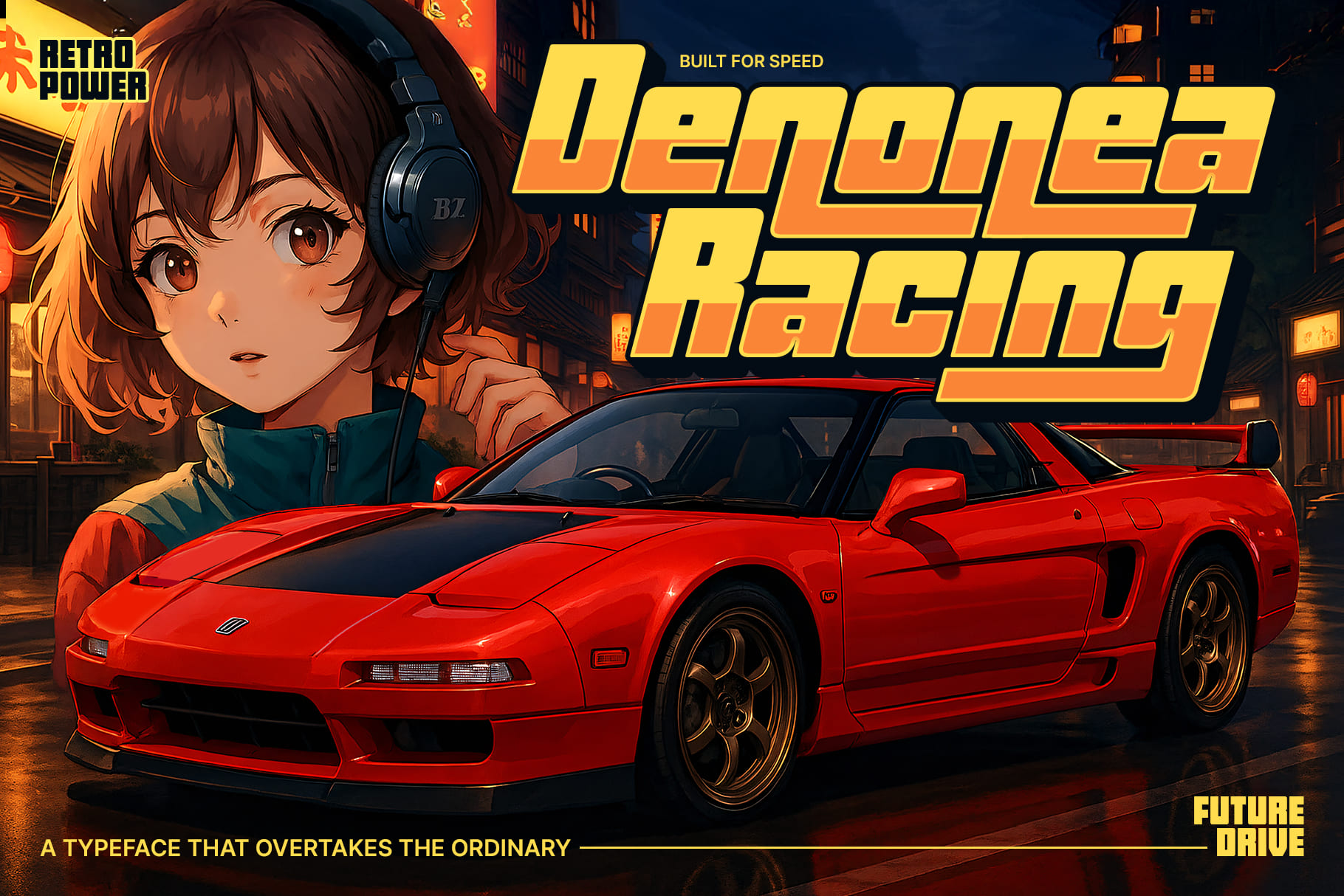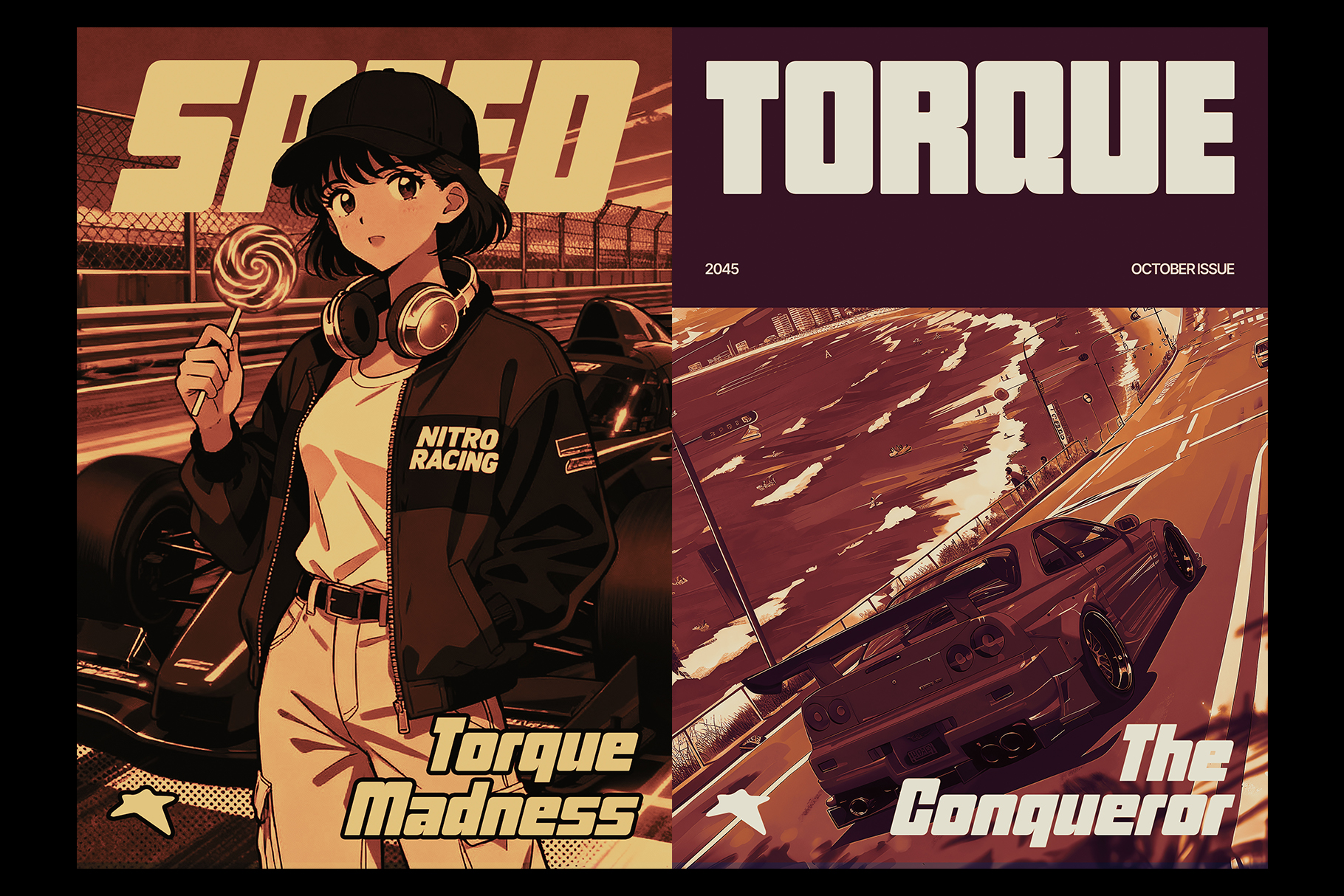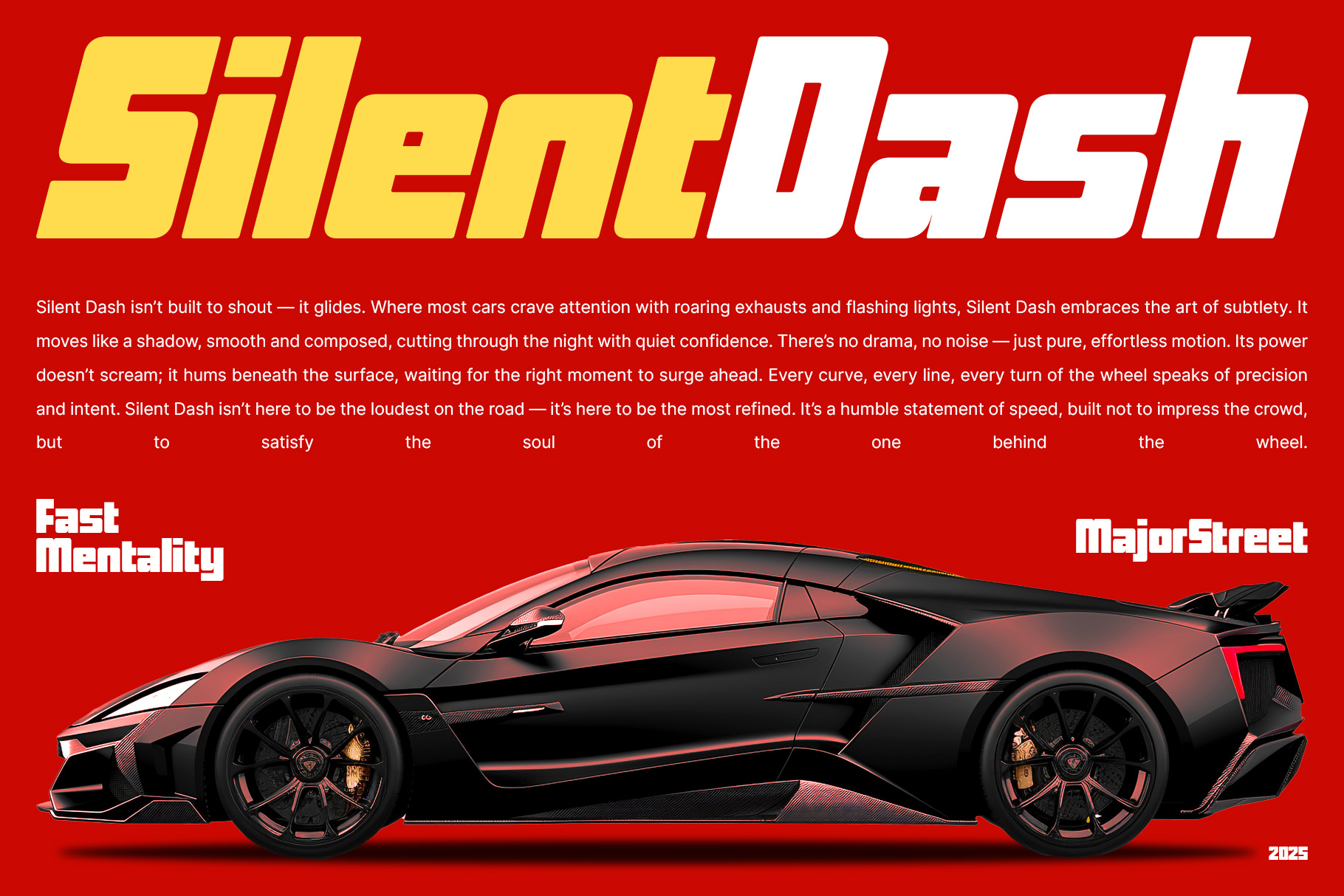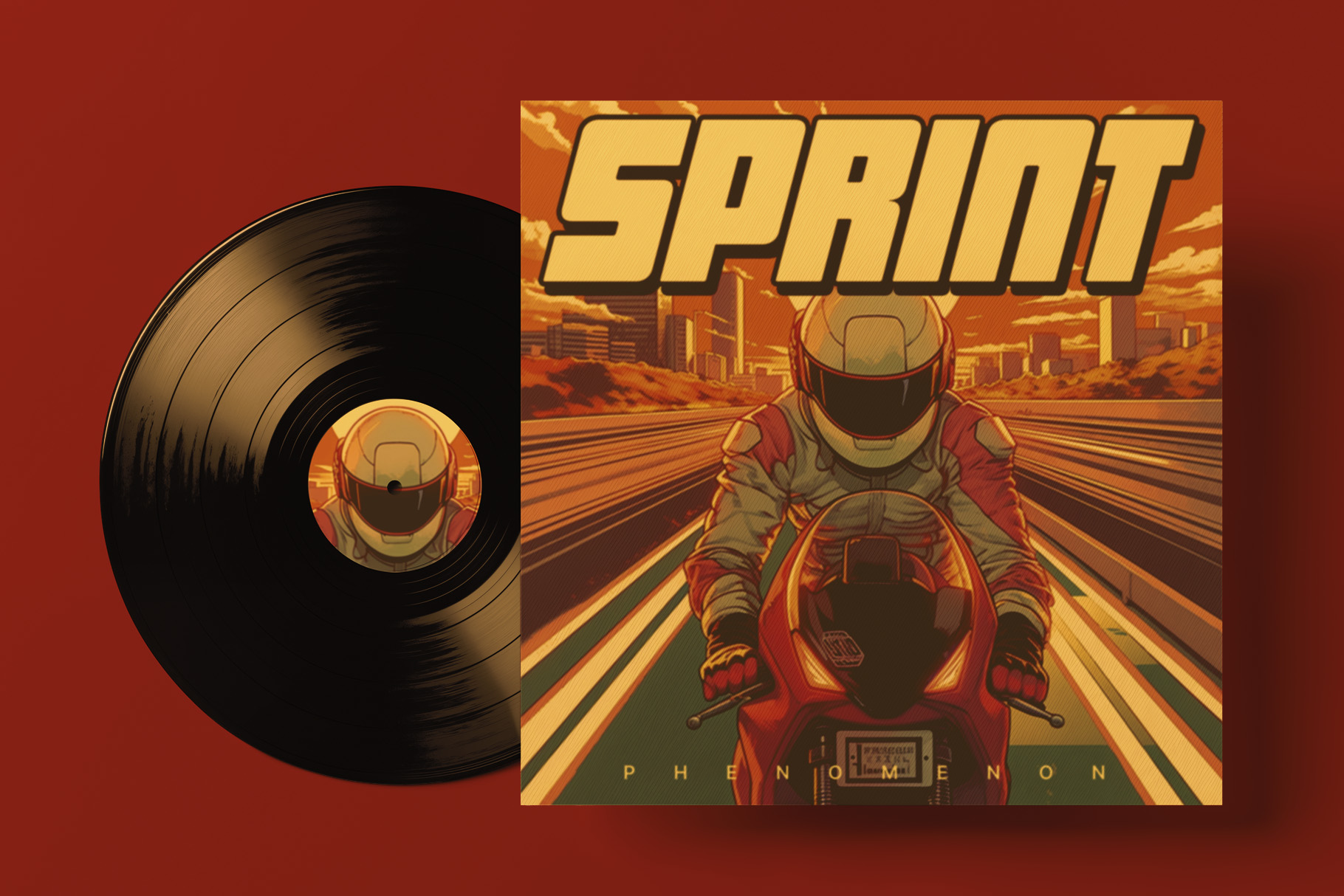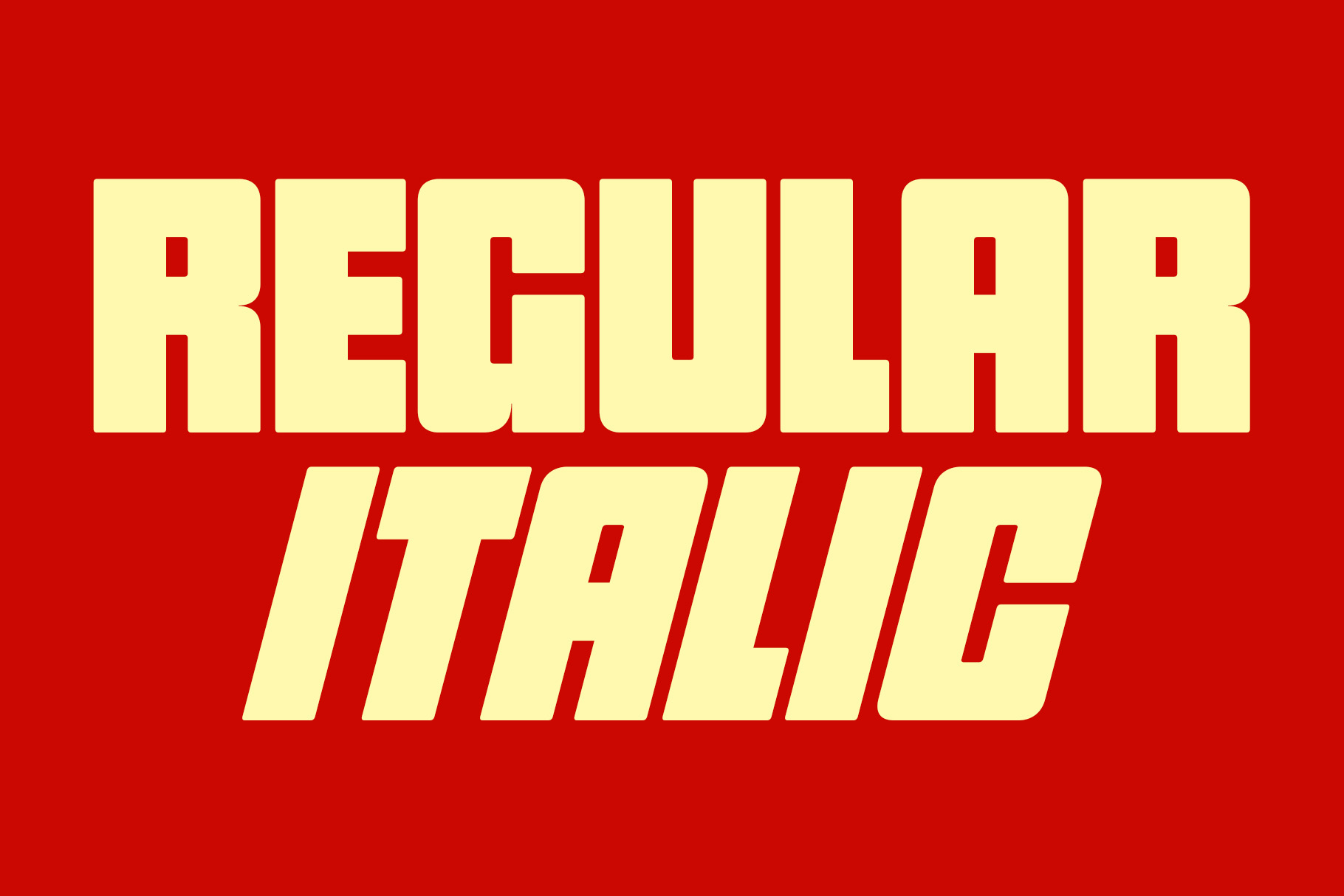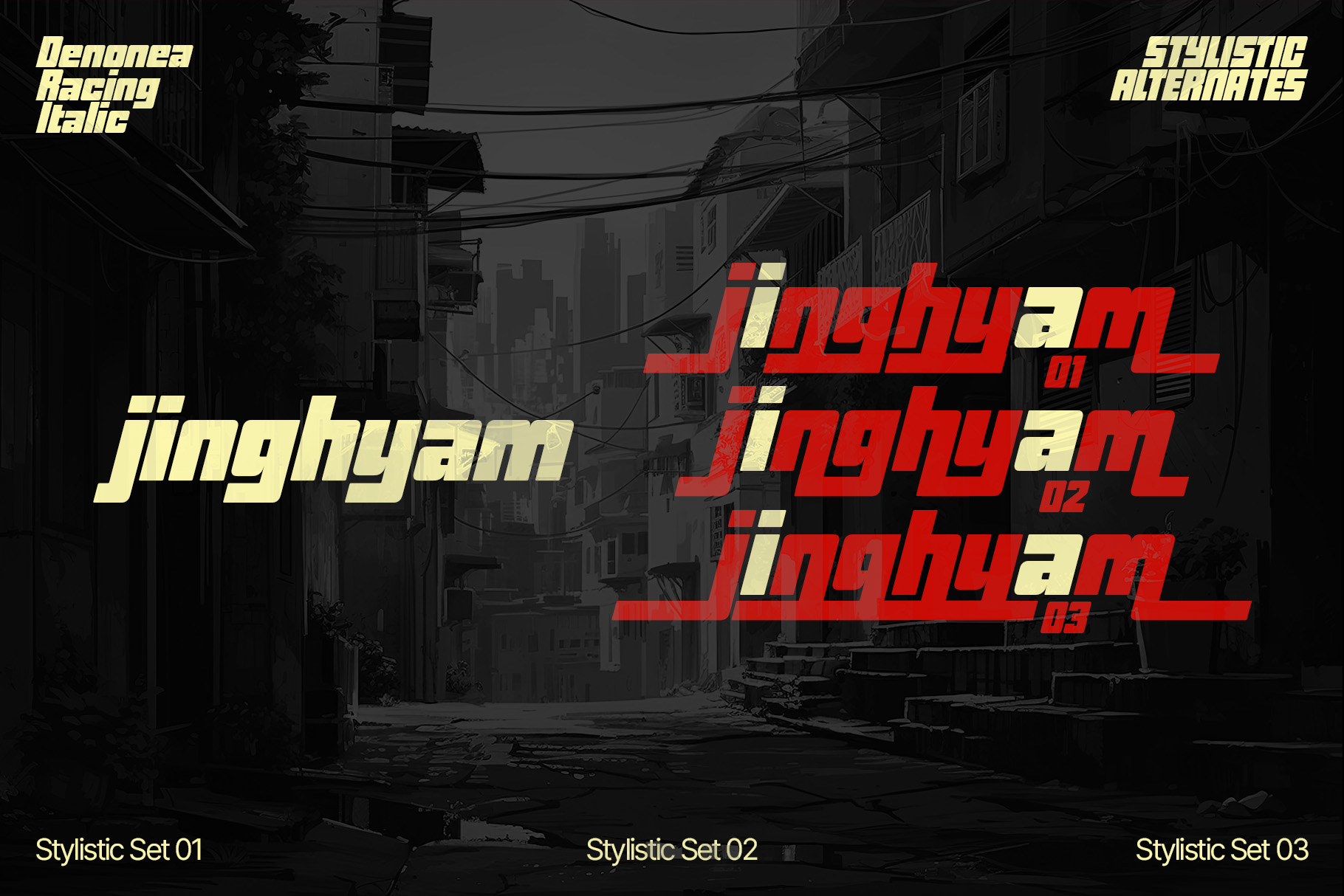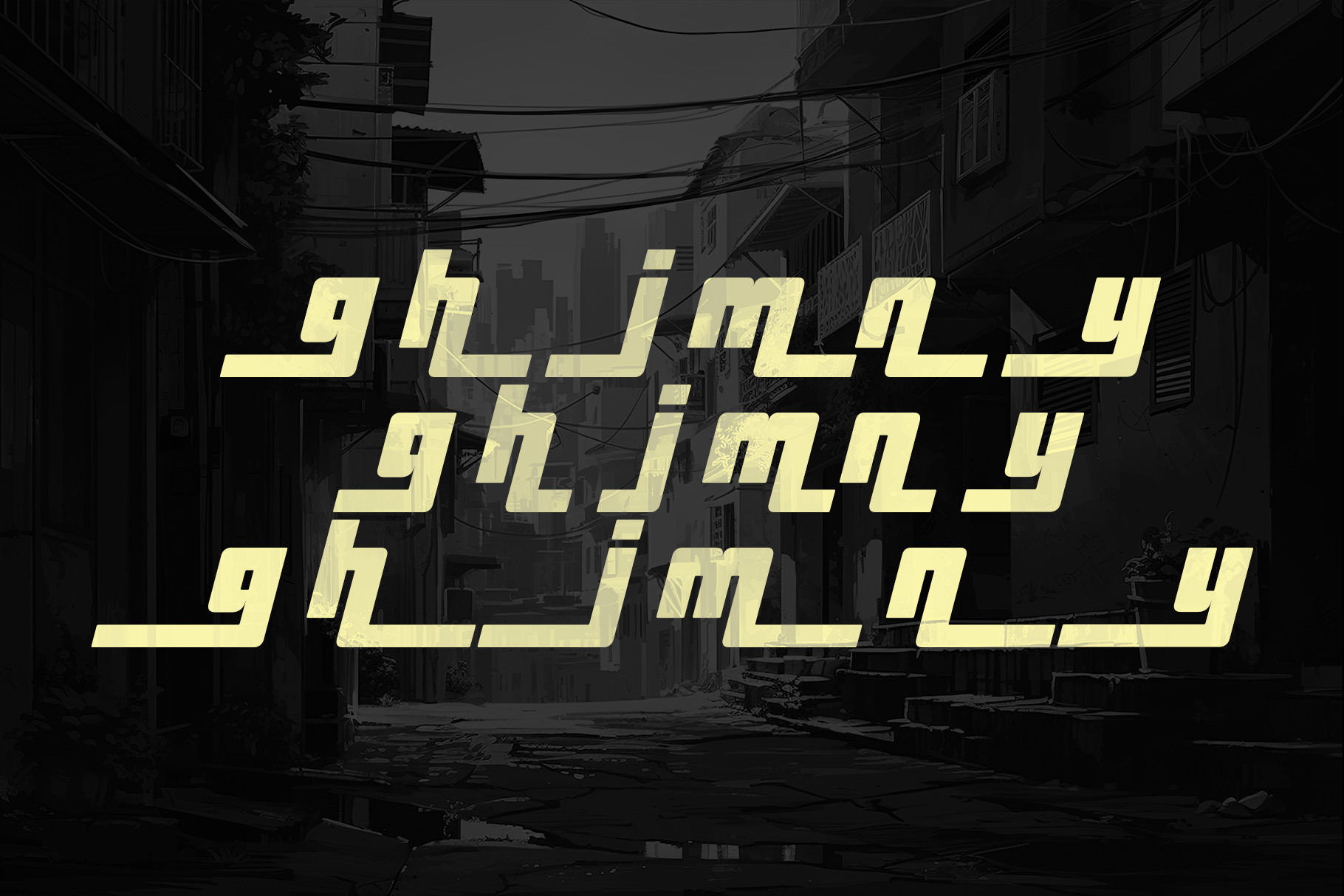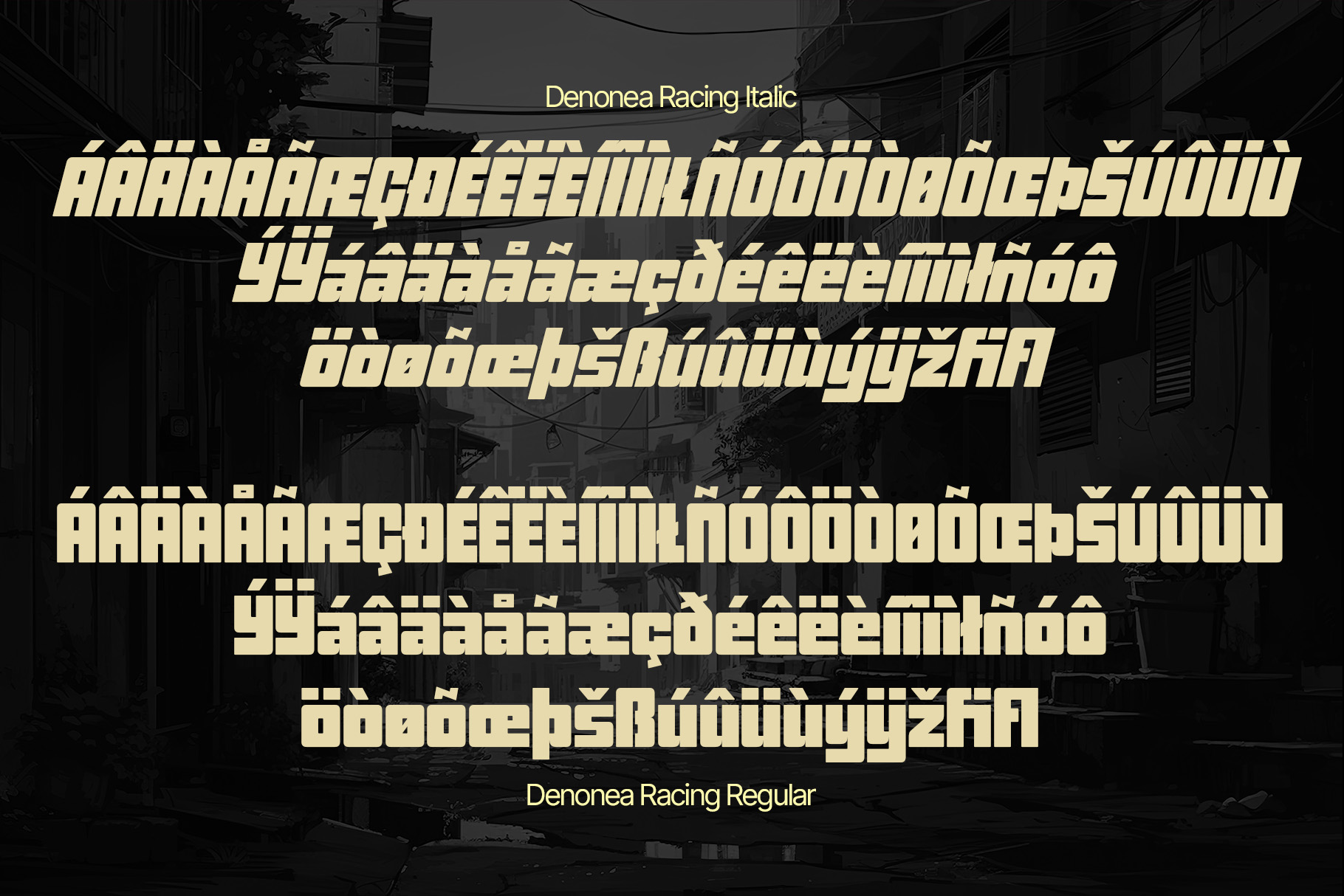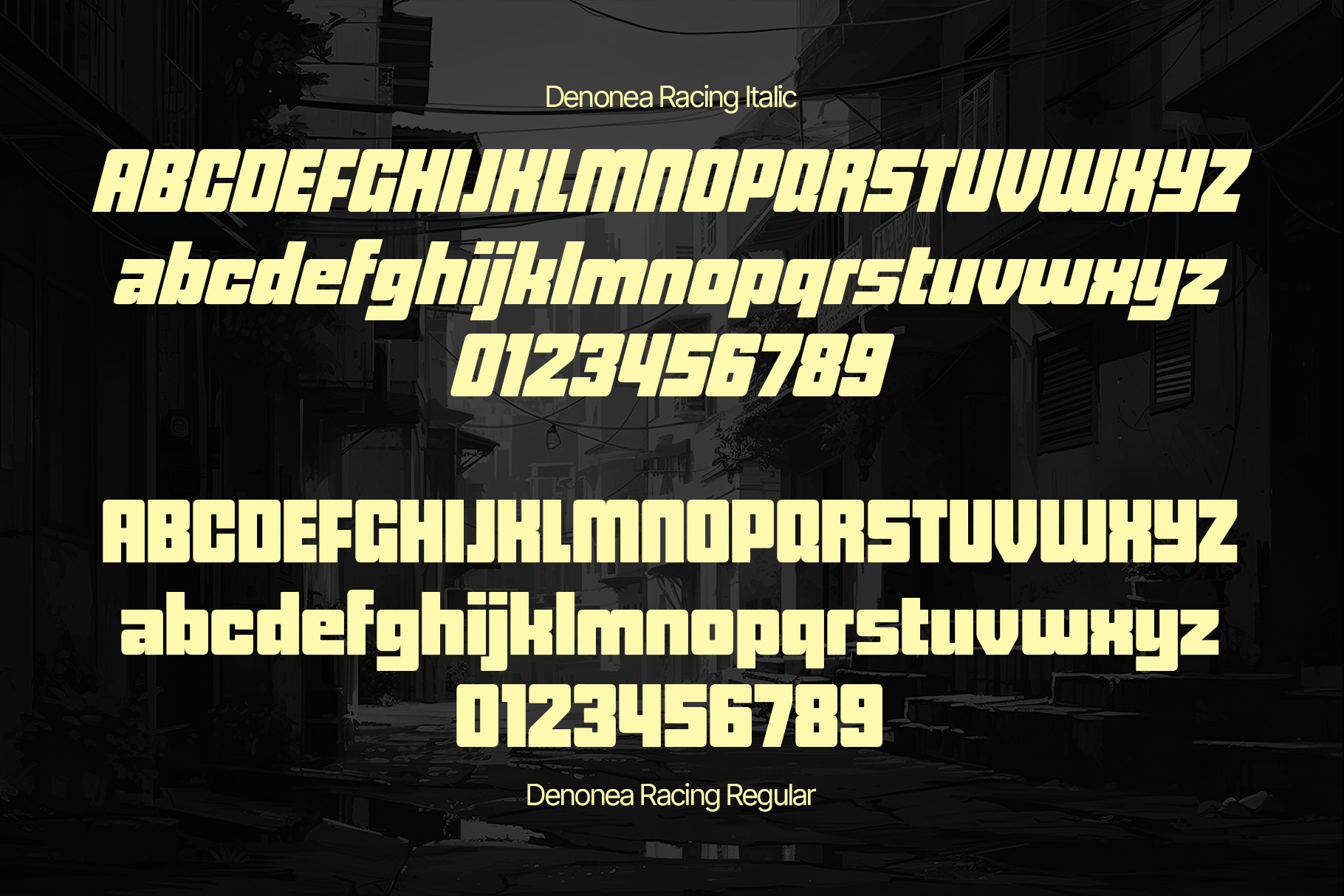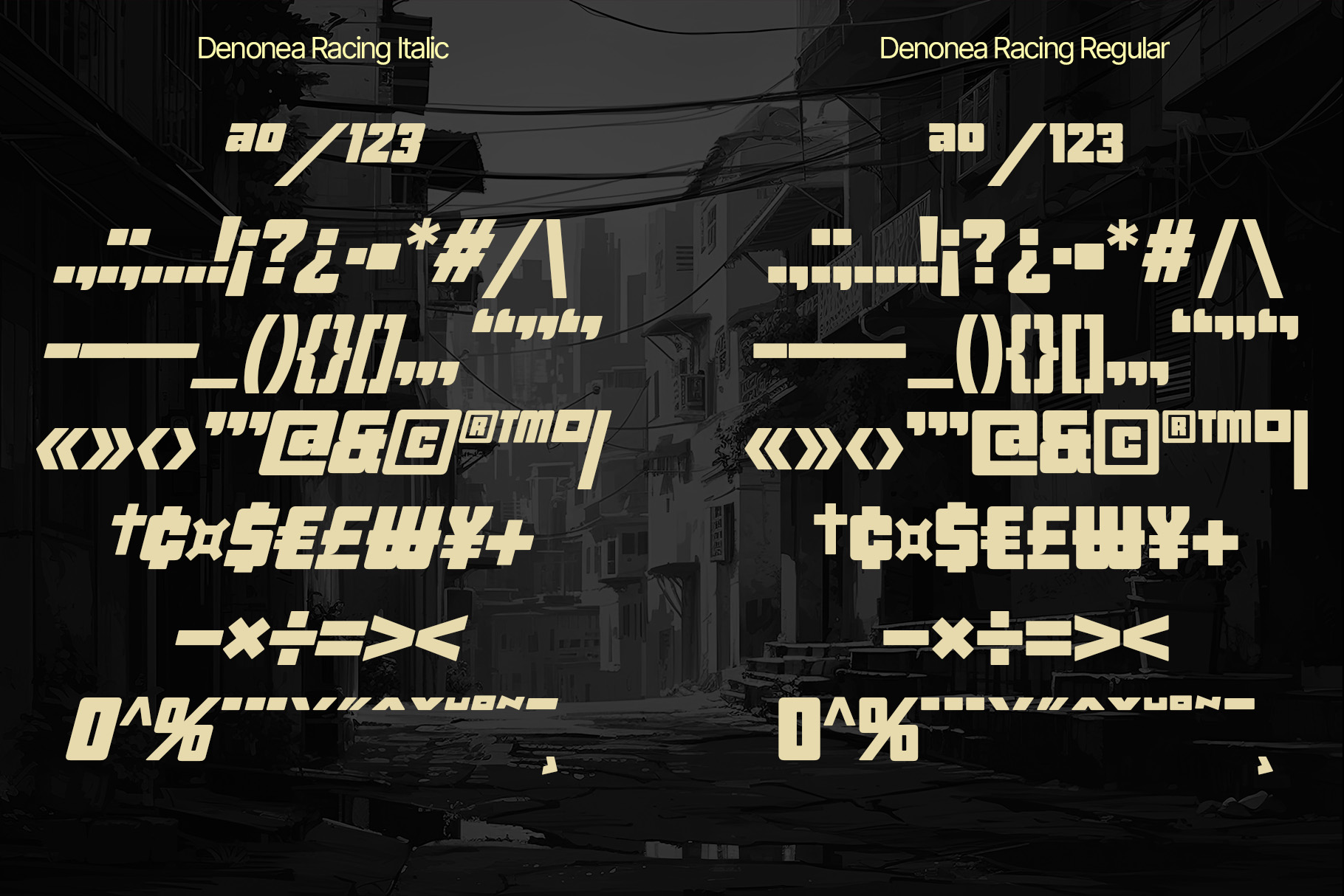
Denonea Racing – Bold Speed Fonts
Denonea Racing – A Typeface Built for Speed and Style
Unleash the thrill of motion with Denonea Racing, a bold and blocky display font inspired by the world of automotive design, racing culture, and vintage anime aesthetics. Crafted for creators who love speed, precision, and retro flair, Denonea Racing embodies the energy of classic motorsport visuals fused with futuristic edge.
This typeface comes in two dynamic styles: Regular and Italic. The regular version delivers strong, confident stability, while the italic version captures the essence of speed—perfect for titles that need to move fast and look powerful. Denonea Racing Italic also features exclusive stylistic alternates, giving your typography that unique, performance-driven look that stands out from the crowd.
Whether you’re designing for posters, racing brands, automotive magazines, or anime-inspired visuals, Denonea Racing will take your project from zero to full throttle.